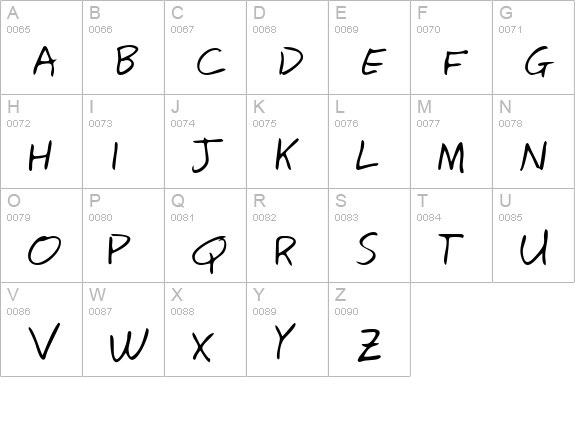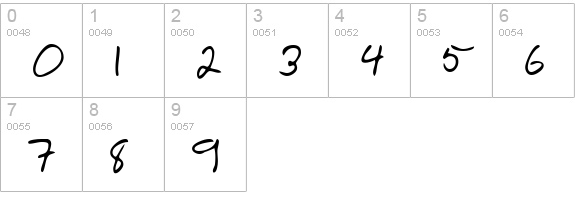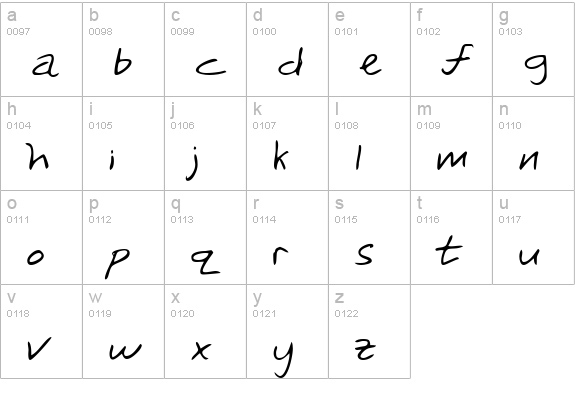
RickysHand Font Details
Ricky's Hand font is a unique and eye-catching typeface that will make your designs stand out from the crowd. With its playful and hand-drawn appearance, this font adds a touch of fun and creativity to any project. The letters of Ricky's Hand font are carefully crafted to resemble a casual, handwritten style, giving your text a personal and organic feel. Each stroke is carefully designed to create a sense of movement and energy, making it perfect for titles, headlines, logos, and more. But what makes Ricky's Hand font even more appealing is that it is completely free! That's right, you can download this font for absolutely no cost at FontsMarket.com. Whether you're a professional designer or just someone looking to add a little flair to your personal projects, Ricky's Hand font is freely available to everyone. So why wait? Start using Ricky's Hand font today and let your creativity flow. Whether you're designing posters, greeting cards, invitations, or any other visual project, this font will bring a touch of personality and charm to your work. Download Ricky's Hand font now and let your imagination run wild.